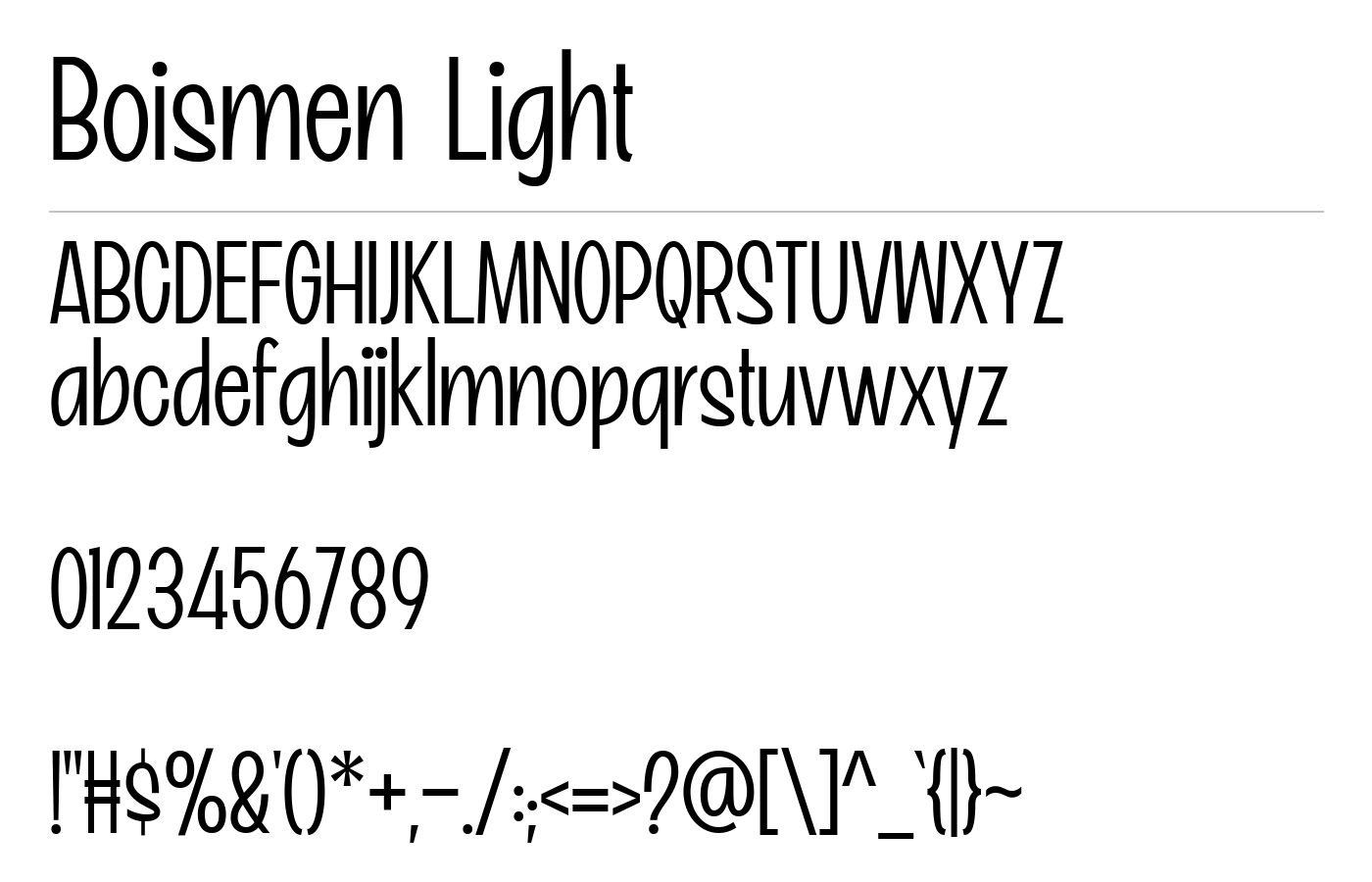
Boismen Light is a tall, slender sans serif font with a clean and modern feel, featuring light weight and narrow width that create an elegant and airy appearance. Its subtle curves and unique letterforms add personality without sacrificing readability, making it perfect for stylish headlines, editorial layouts, and contemporary branding that seeks a refined and distinctive look.
Boismen Font
About Boismen Font